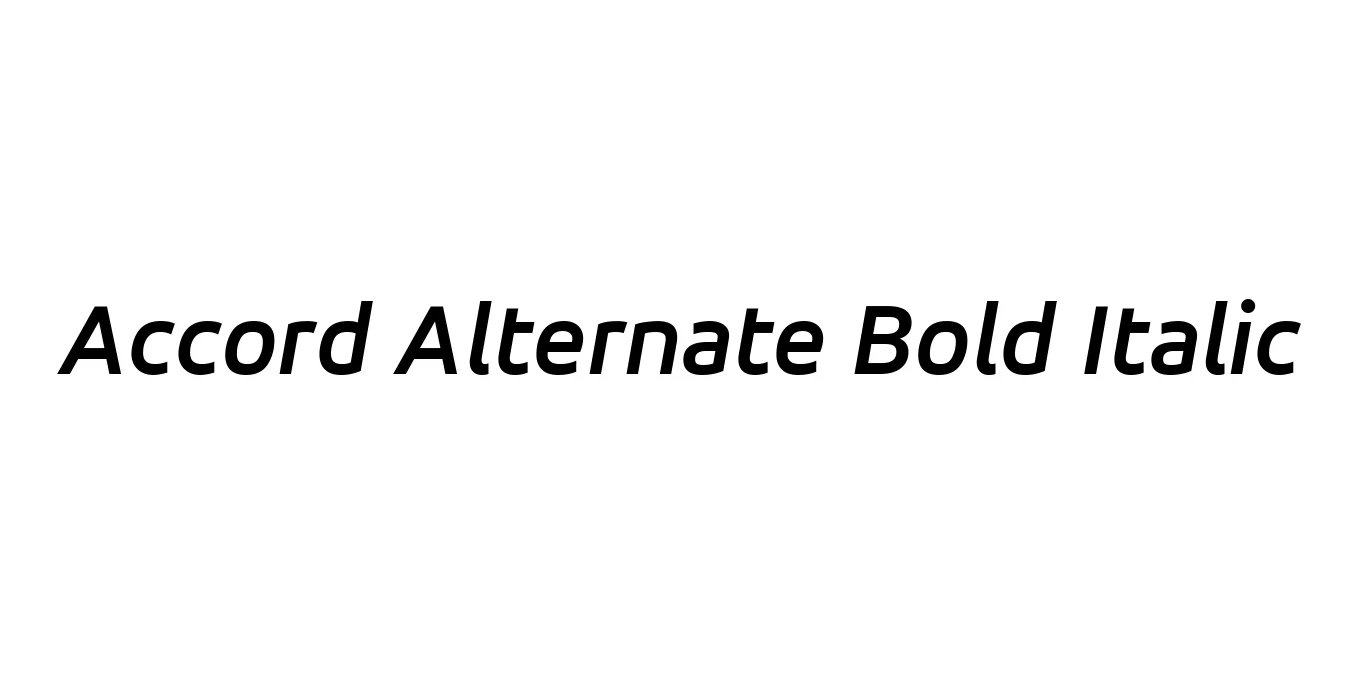
Accord Alternate Bold Italic
Designed by Akira Kobayashi
Accord Alternate Bold Italic is a distinguished member of the Accord family, a geometric sans-serif typeface designed to offer a blend of modern efficiency and classic proportion. Originally developed to provide designers with a highly versatile tool, this specific 'Alternate' version introduces unique character variations that distinguish it from standard geometric faces. The Bold Italic weight provides a powerful, dynamic presence, featuring a carefully calibrated slant that maintains legibility while adding a sense of forward motion and urgency to the text.
This typeface is characterized by its clean lines, circular curves, and consistent stroke weights, which are hallmarks of the geometric style. The alternate glyphs included in this family allow for greater creative flexibility in branding and editorial layouts. Whether used in high-resolution print or digital screens, Accord Alternate Bold Italic ensures a professional and contemporary aesthetic, making it a favorite among graphic designers seeking a balance between functional clarity and stylistic flair.
Accord Alternate Bold Italic Best Uses
Ideal for creating strong, recognizable logos and corporate identities.
Excellent for impactful headlines and call-out quotes in magazines.
Perfect for high-energy promotional materials and bold social media graphics.
Highly effective for prominent navigational elements and landing page headers.